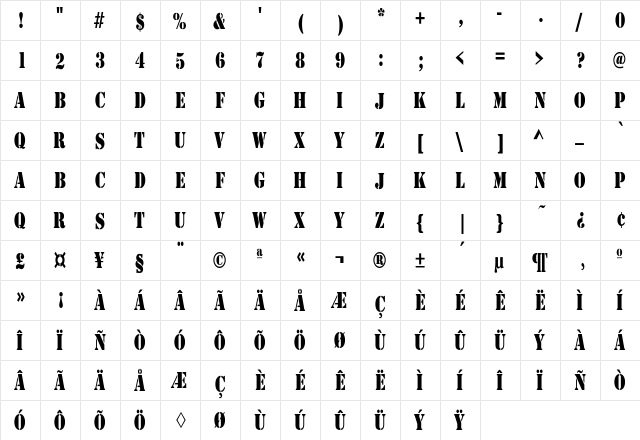
Rudy Condensed Regular
Design Context for Rudy Condensed Typeface
Rudy Condensed is a composed and adaptable typeface that performs quietly and consistently across a wide range of design contexts. The condensed width makes it efficient for tight spaces without sacrificing legibility.